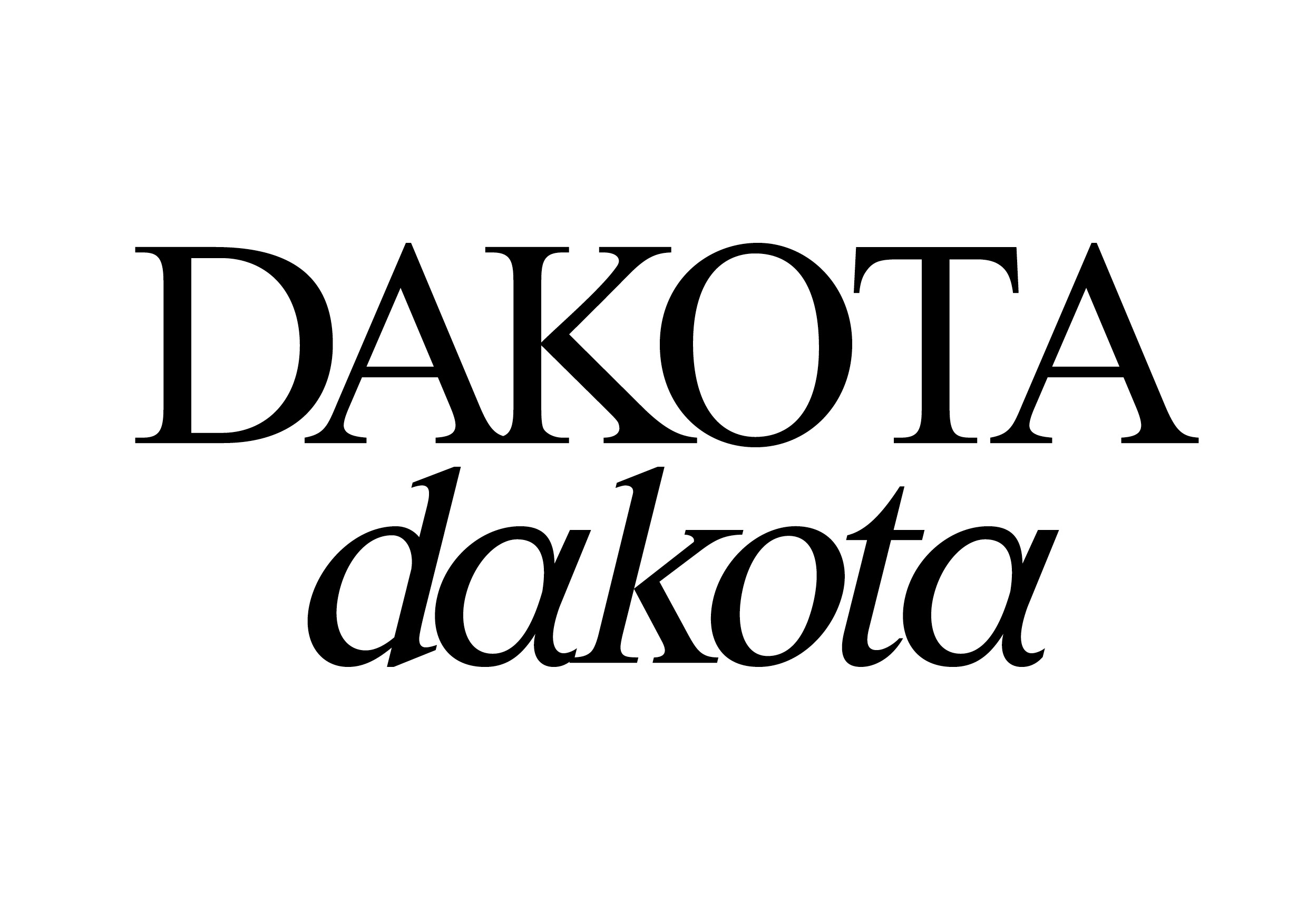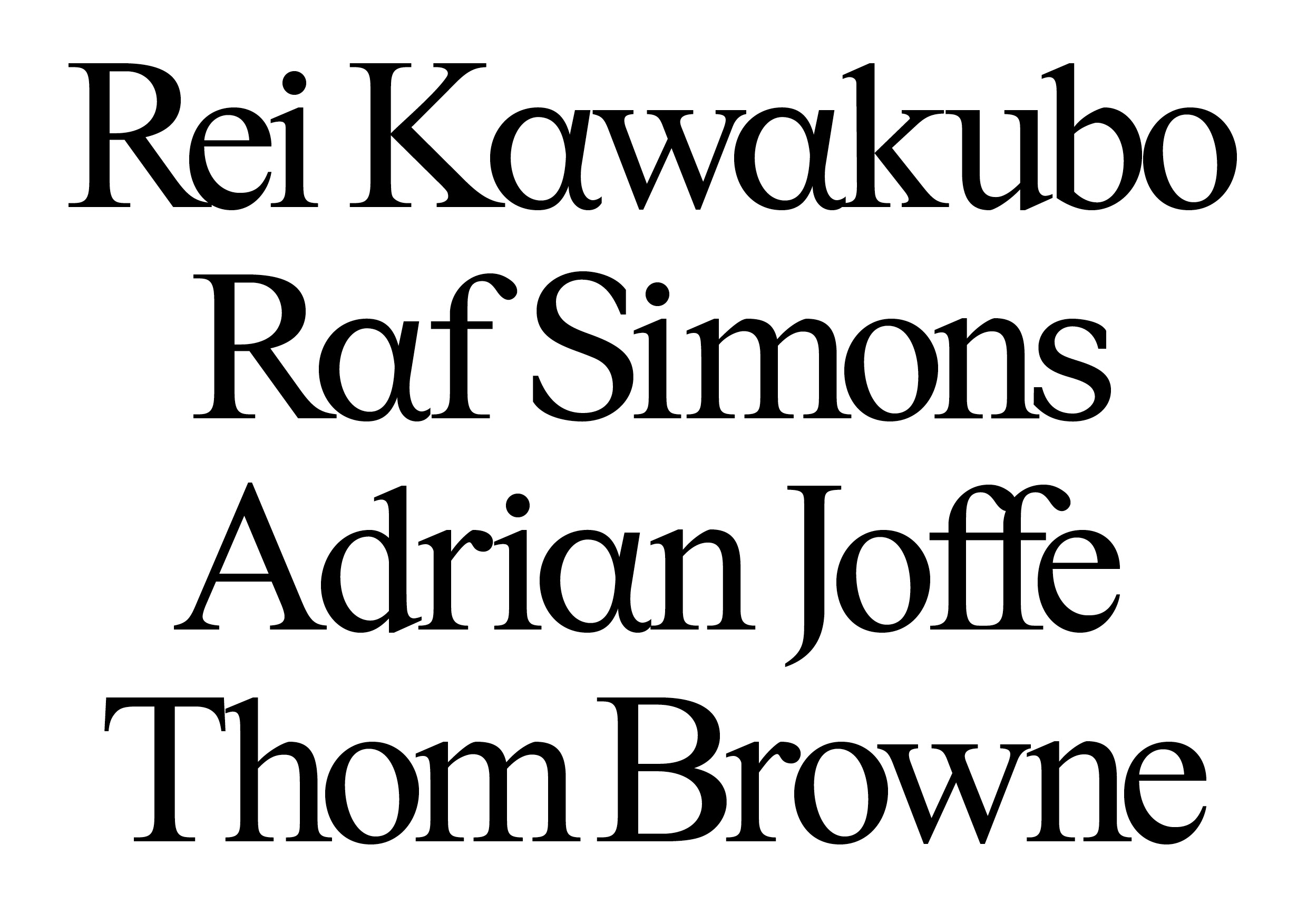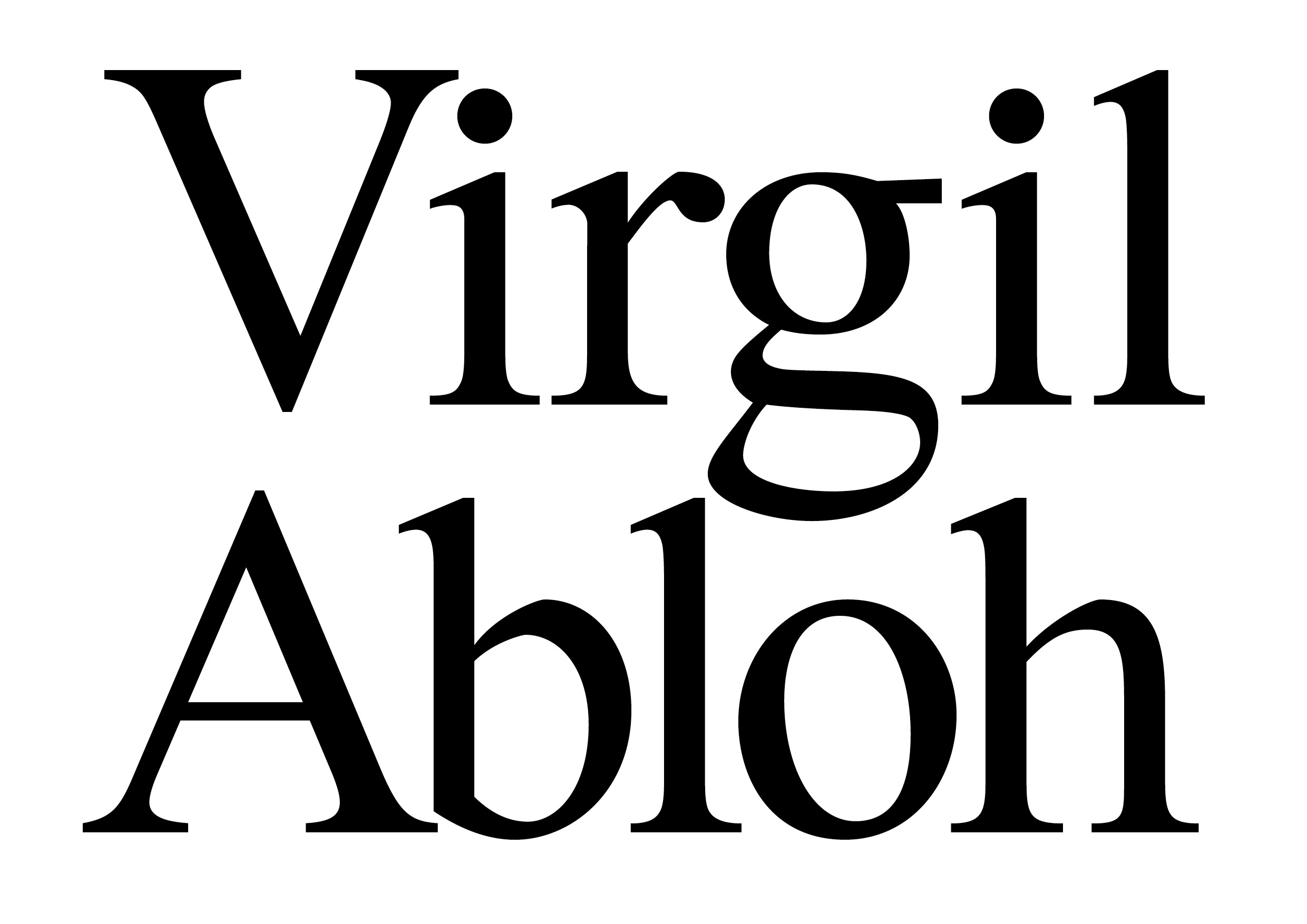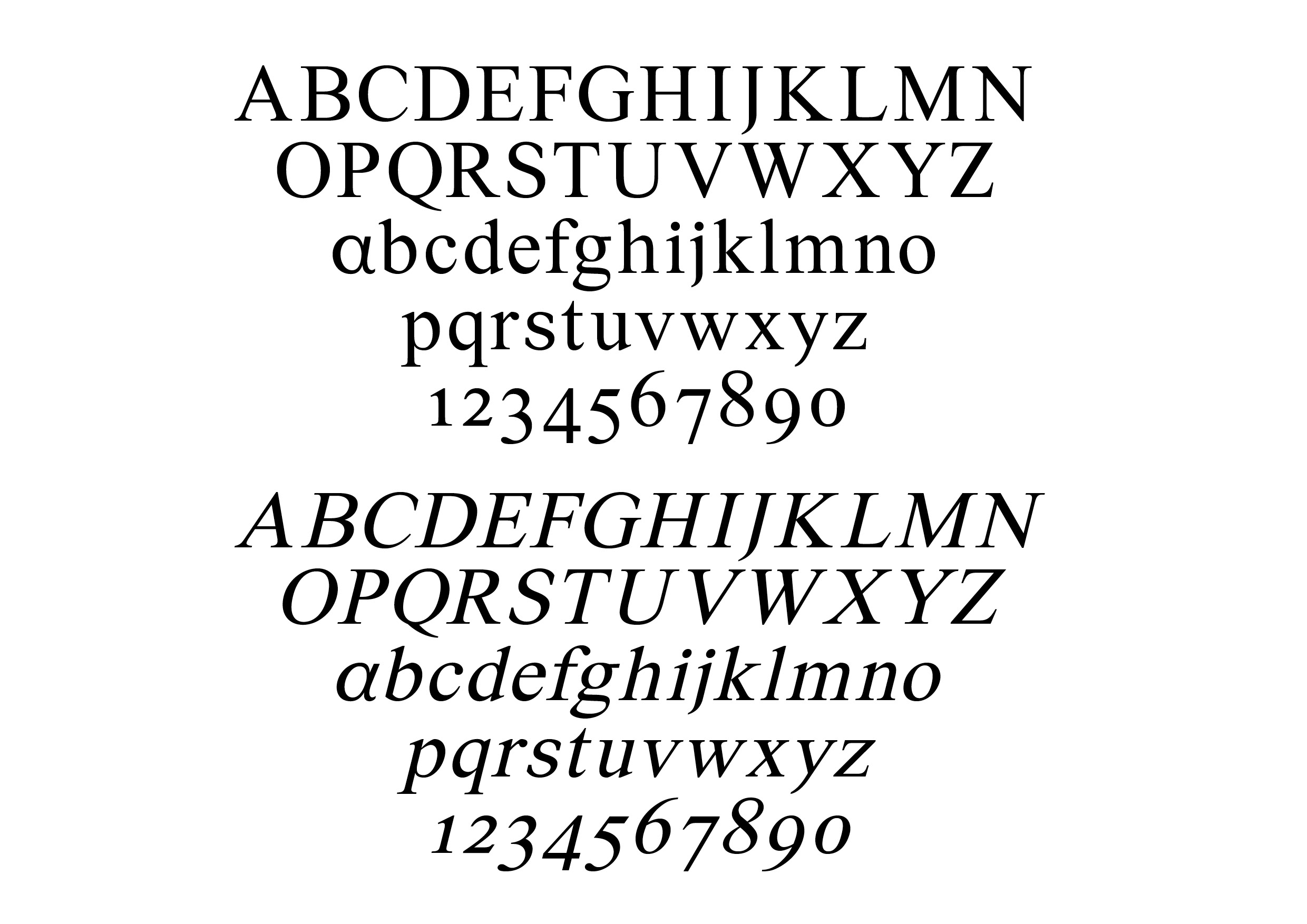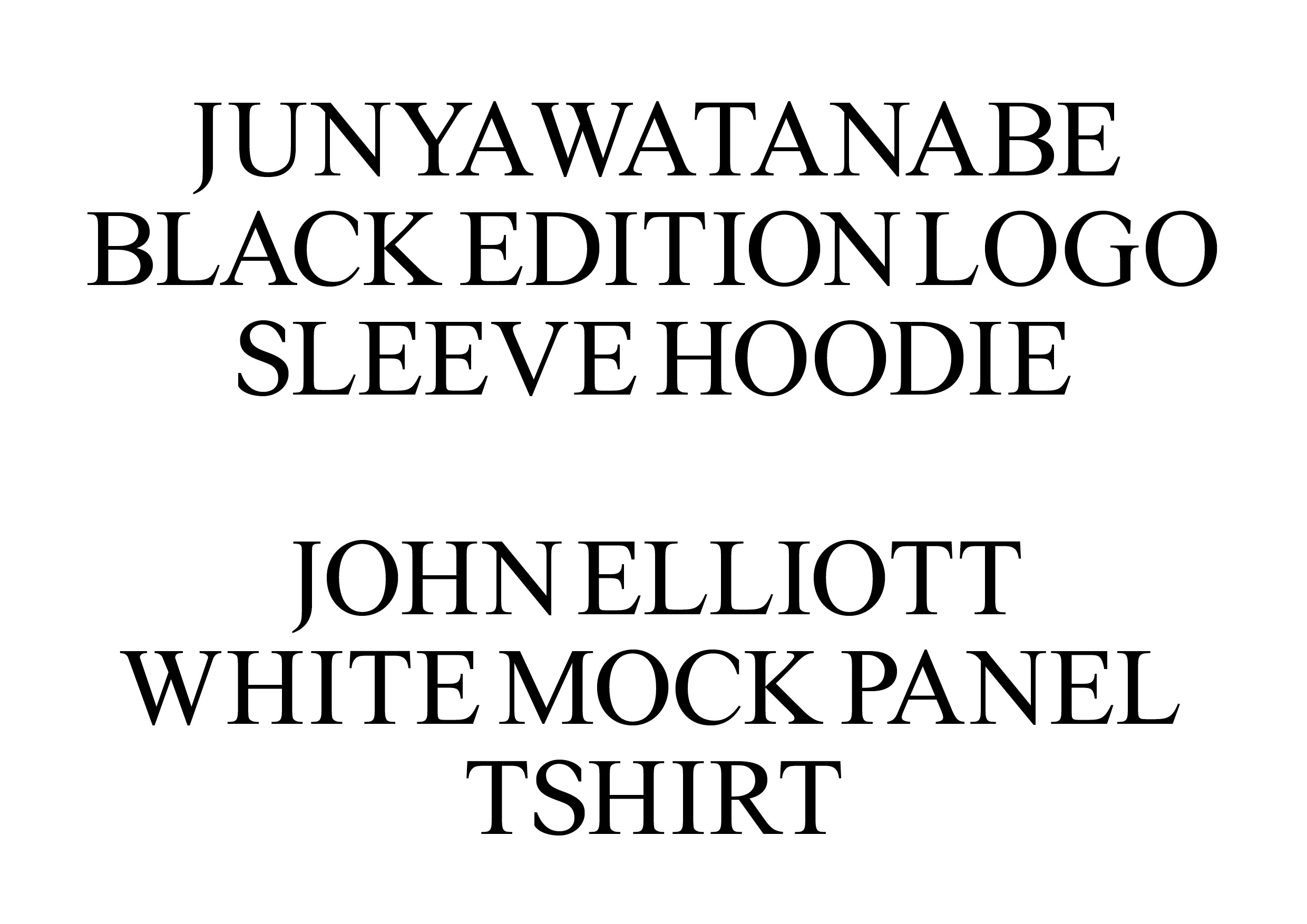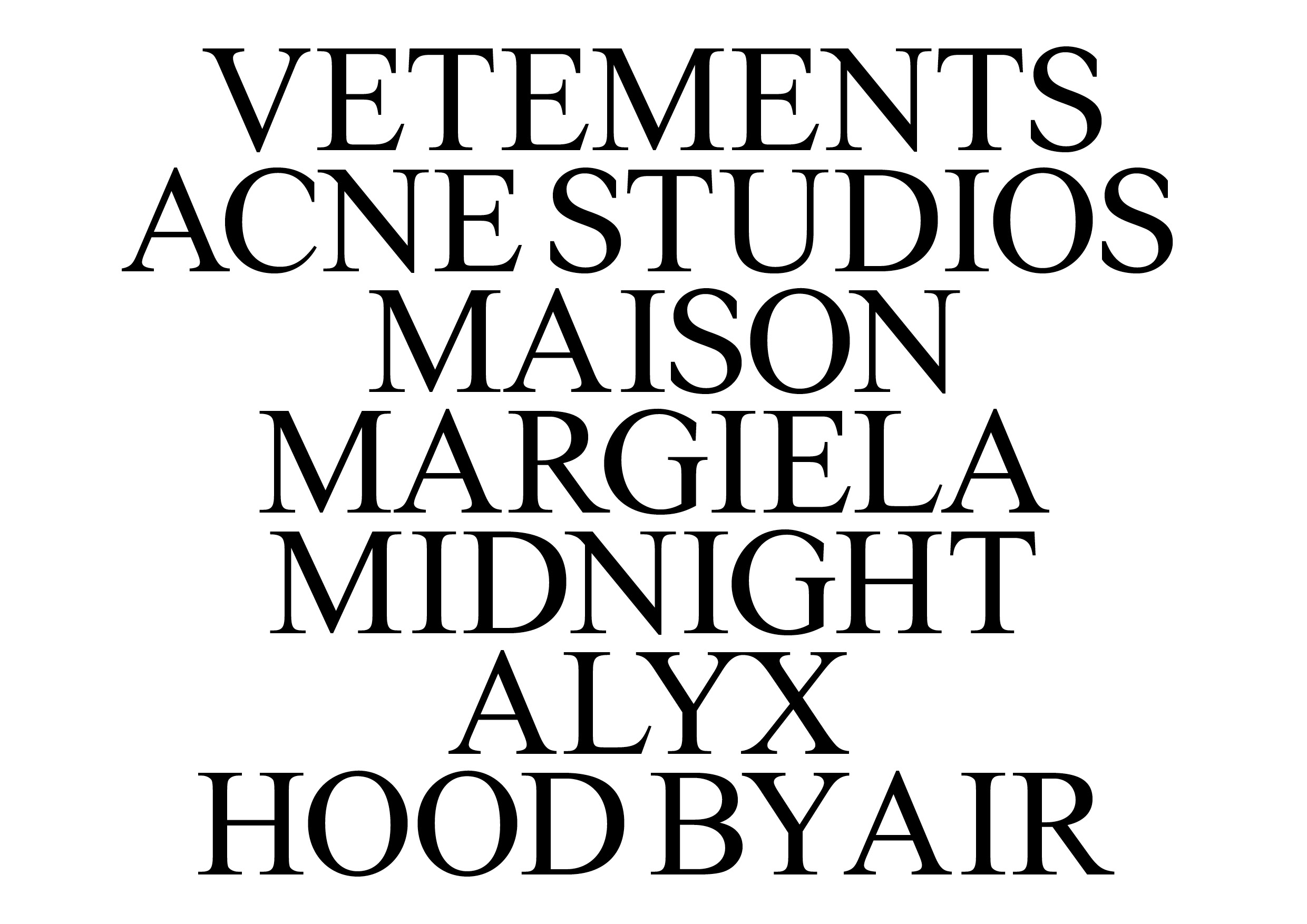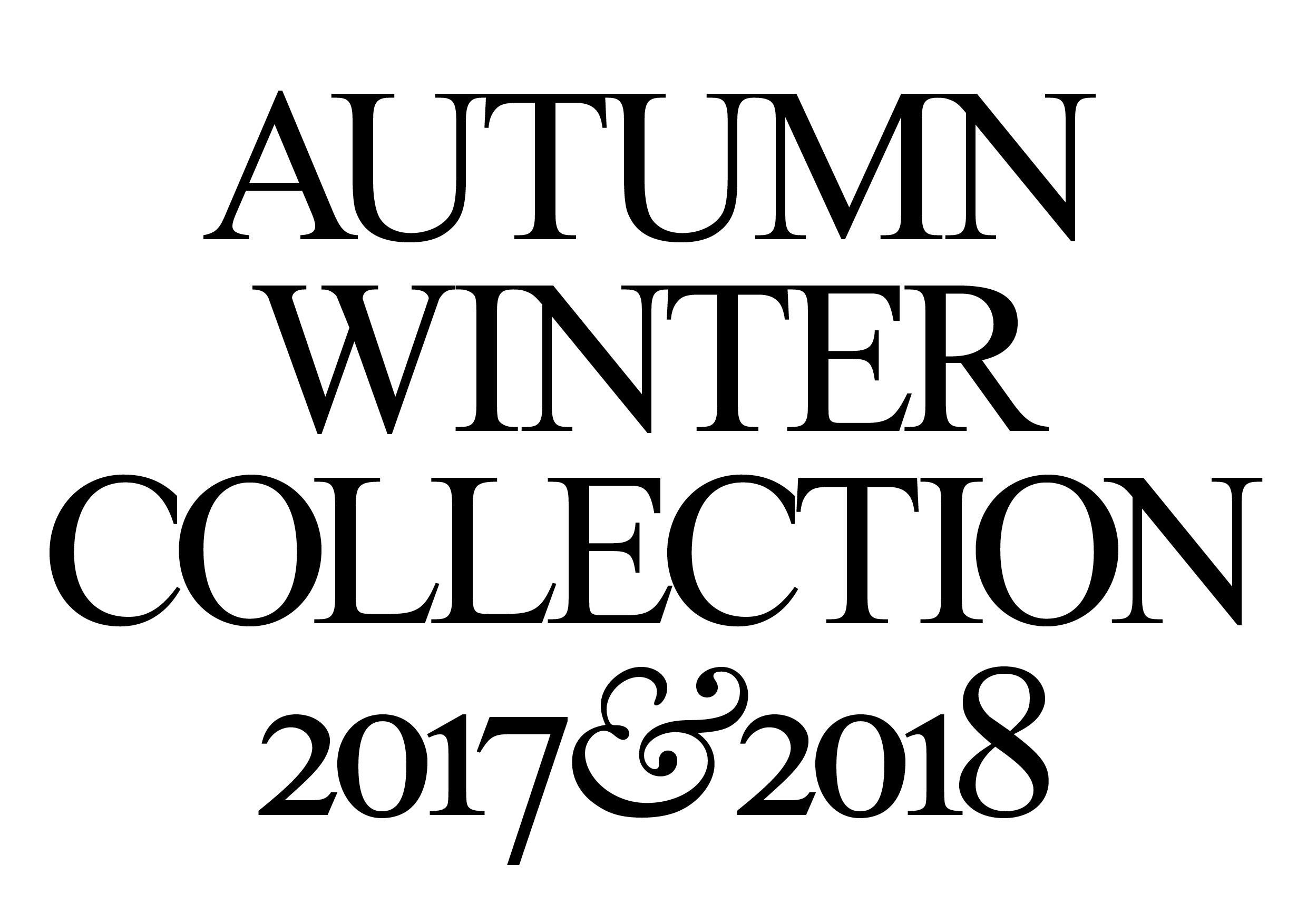
Dakota Serif
Dakota Serif is a timeless serif with a human touch. Inspired by the subtle contours and imperfect beauty of the human form, it embraces the “lumps and bumps” that give character and individuality. Echoing the spirit of vintage Comme des Garçons ephemera and archival fashion, Dakota Serif carries both elegance and edge. It’s a typeface that embraces the unconventional yet remains refined, offering projects a balance of charm and distinction.